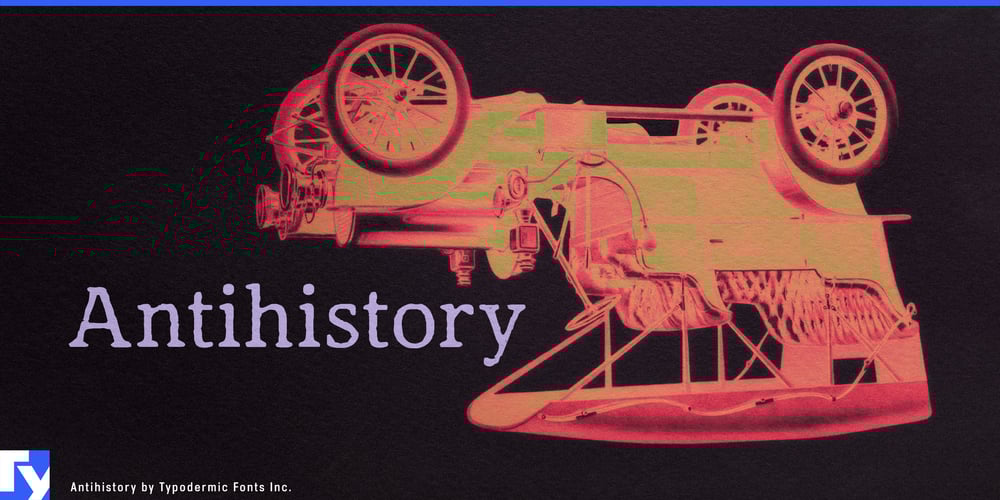
Antihistory
Antihistory font
Antihistory Font Family was designed by Ray Larabie and published by Typodermic. Antihistory contains 2 styles and family package options. Buckle up, time travelers and alternate reality enthusiasts! Antihistory has crash-landed in our dimension, bringing with it the typographic essence of a future that never existed. This isn’t your grandpa’s vintage font—it’s your cyborg great-grandkid’s idea of retro cool.Antihistory doesn’t just break the fourth wall; it shatters the very concept of linear time. Inspired by the fever dreams of late 20th-century futurists and the wild imaginings of gonzo journalists, this typeface looks like it was chiseled from the neon-lit debris of a post-apocalyptic disco. Its distressed edges whisper tales of alternate timelines where the Y2K bug won and sentient billboards rule the streets.Available in both Regular and Italic flavors, Antihistory gives you the power to bend reality to your whims. The Regular style screams headlines from multiversal newspapers, while the Italic slant adds a touch of quantum uncertainty to your designs. It’s perfect for crafting logos that look like they’ve been beamed back from a retro-futuristic utopia or creating posters for underground cyberpunk raves that happened decades ago in a parallel 2023. But Antihistory isn’t content with mere visual trickery. This linguistic shapeshifter speaks fluent Afrikaans, croons in Croatian, and can even sweet-talk in Swahili. From the neon-drenched alleys of Neo-Tokyo to the steam-powered skylines of an alternate Berlin, your message will resonate across a tapestry of Latin-based languages, each glyph carrying the weight of unwritten histories.So why settle for fonts that merely mimic the past when you can harness the power of paradox? Antihistory isn’t just a typeface; it’s a portal to possibilities, a typographic time machine that laughs in the face of chronological order. It’s for designers who dare to ask, “What if?” and aren’t afraid of the answer. Embrace the anachronism. Defy the timeline. Let your designs tell stories of futures that never were and pasts yet to come. With Antihistory, you’re not just making a statement—you’re rewriting history, one glyph at a time.Remember, in the world of Antihistory, the only rule is that there are no rules. So go ahead, mix that Art Deco with your cyberpunk, blend your steampunk with your vaporwave. The future-past is your playground, and Antihistory is your trusty time-bending sidekick. Get ready to make history—or unmake it. Antihistory is here, and it’s about time.